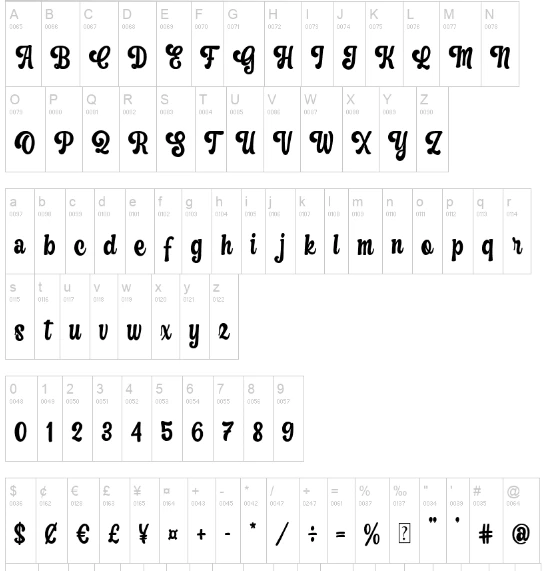
Last Dream is a Script and handwritten typeface with bold, thick lettering. The typeface is vintage-styled and boldly lettered, making it suitable for a wide range of designs. The font is appropriate for designs requiring a classic and antique touch. Last Dream is a gorgeous layered font with regular and extrude options. To generate a slice appearance, this typeface was built with contextual alternatives open type features. Damarletter developed and shared the font.
The font is quite versatile, allowing you to create something both lighthearted and intense. This quality isn’t seen in every typeface. Another amazing feature of this font is that it looks excellent in any color. You will choose the color after considering whether it will look nice or not. The font is available in both TTF and OTF formats. Windows, Apple/Mac, Linux, Cricut, Silhouette, and other cutting machines are all interoperable with the font. This Font is also PUA encoded, which adds to its overall quality.
Last Dream Font is ideal for logos, social media posts, commercials, product packaging, product designs, labels, stationery, and just about anything else. The font appears to be a lot of fun, and you can use it to build amusing logos and texts.